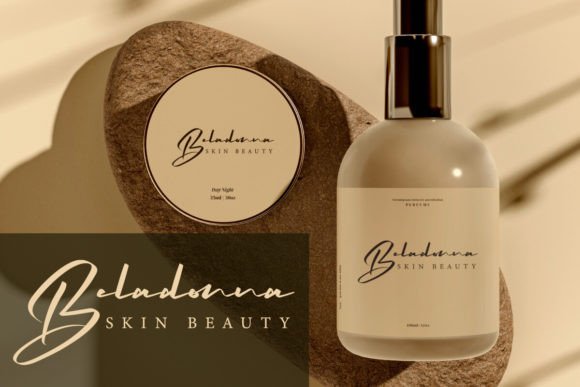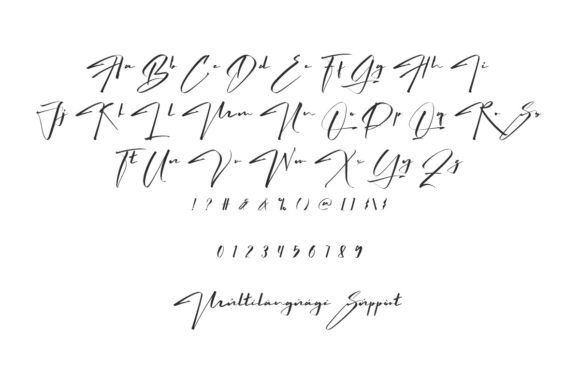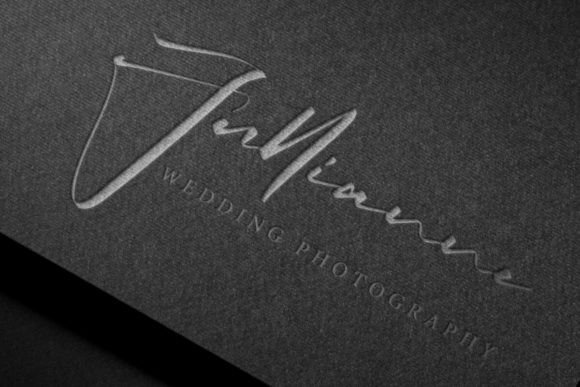
Introduction to History Sign Font
History Sign Font is a stylish bold signatures script font with unique style.
👤 Author vintype
This font is made from a bold brush that carries a classic concept and still easy to read This font will be suitable for many industries, such as advertisement, beauty product, event or wedding organizer, fashion, florist, handcraft, homeware, photography, and more.
Key Features of History Sign Font